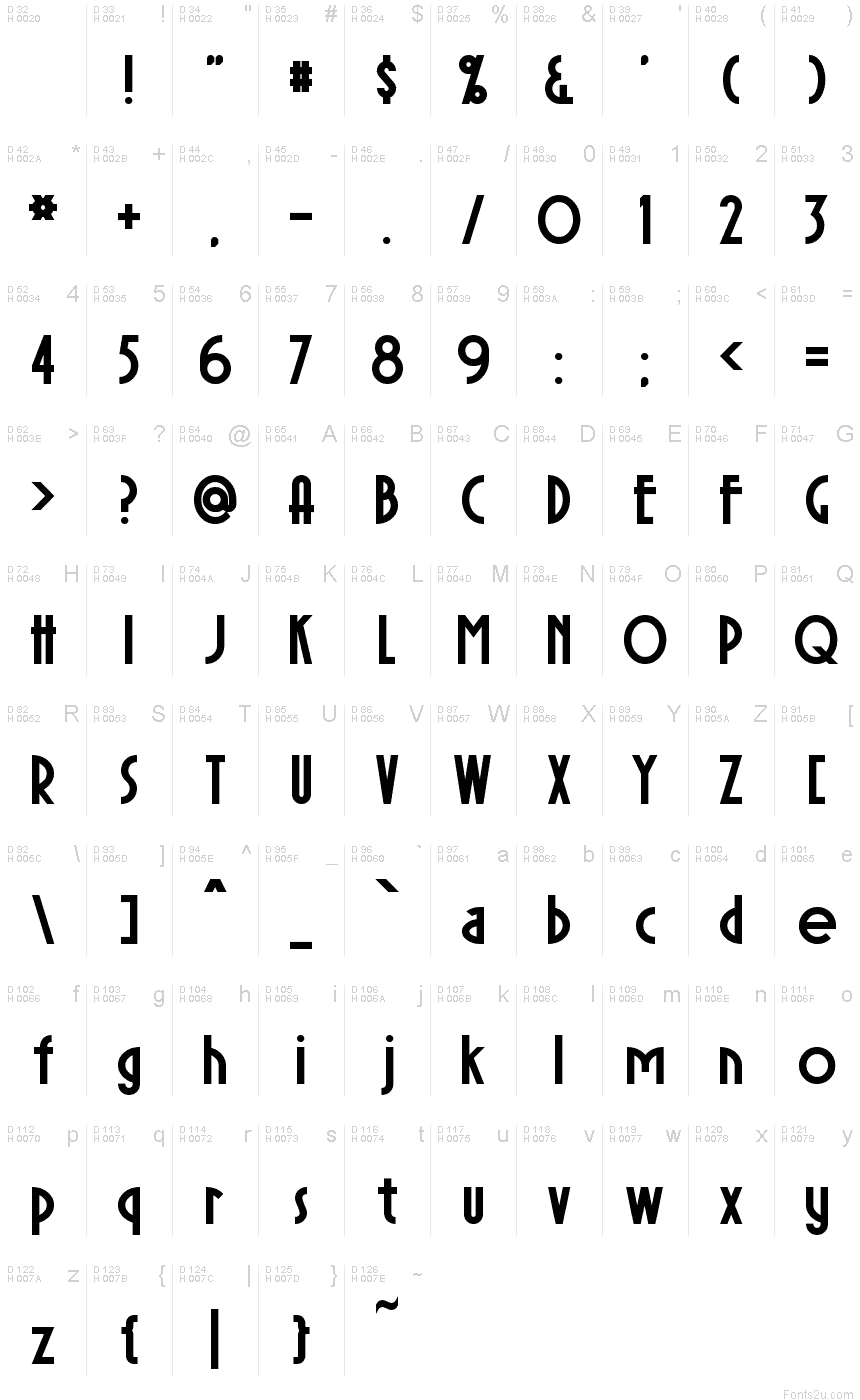
Sierra Madre Bold
My version of one of the more popular art-deco style typefaces, based on the look found in Fallout: Dead Money's Sierra Madre casino. Includes lower case, accent characters, and Euro. Includes bold and italic versions.
Version 1.5
- Added OE and Per-Thousand glyphs
- Kerning cleanup